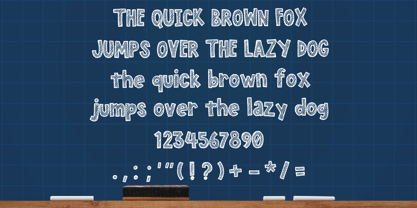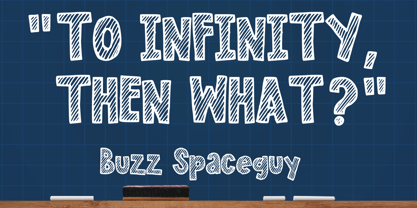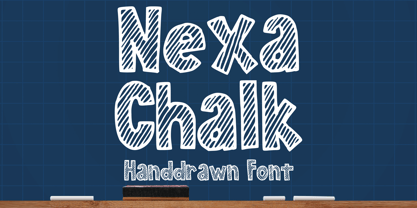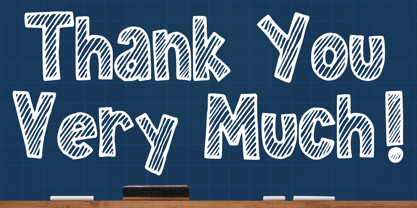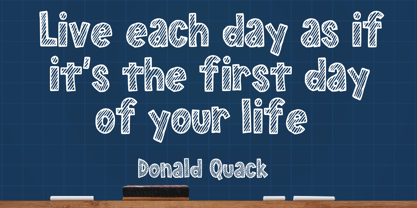
Nexa Chalk
by Mvmet
The Nexa Chalk Font Family was designed by Gabriel Valentinus and published by Mvmet. Nexa Chalk contains 1 styles. More about this family
Nexa Chalk is a fun and playful shaded chalk handdrawn font inspired by natural chalk writing and drawing, suitable for your school projects and more. It will elevate a wide range of design projects to the highest level. You can use this font for many design ideas such as stickers, t-shirt designs, amazing logo designs, magazine or book covers, comics, cartoon drawings, and many more. This font will add a super cool touch to your designs!
Designers: Gabriel Valentinus
Foundry: Mvmet